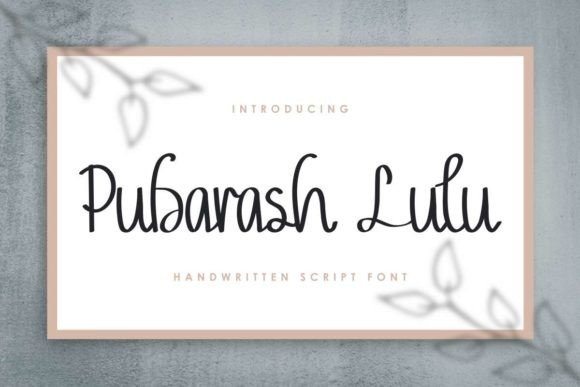
Pubarash Lulu Script Font
Pubarash Lulu Font – Not just another script typeface. In fact, it’s a one of a kind script typeface!
What makes it special is this typeface were made from original hand writing and transformed into a font.
So you don’t have to be an expert to be a hand lettering artist, you can just use this font and voila you can create your own brush calligraphy!